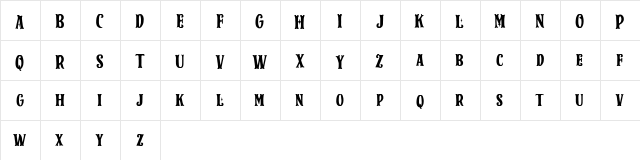
Spark Plug Serif DEMO Regular
| Designer | Ian Irwan Wismoyo |
Design Context for Spark Plug Serif DEMO Typeface
Spark Plug Serif DEMO carries the refined structure of traditional serif typography, with bracketed terminals and considered proportions that communicate credibility and craft.
Pro Tip: Use Spark Plug Serif DEMO for editorial body copy and considered headline work. Pair with a neutral sans for UI elements or captions to create a classic hierarchy.